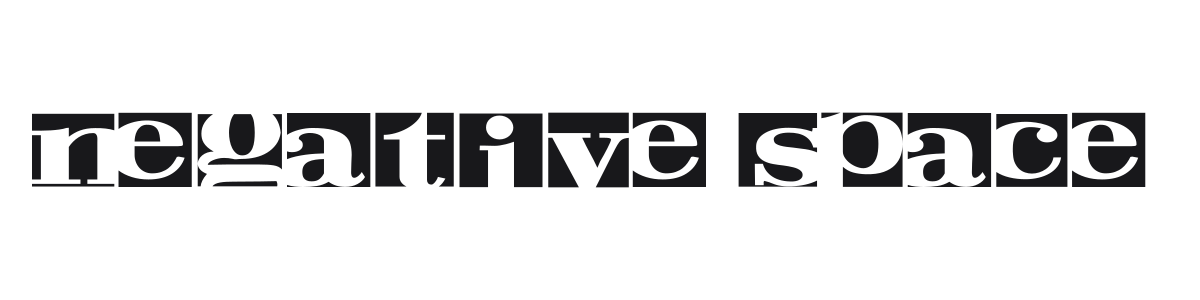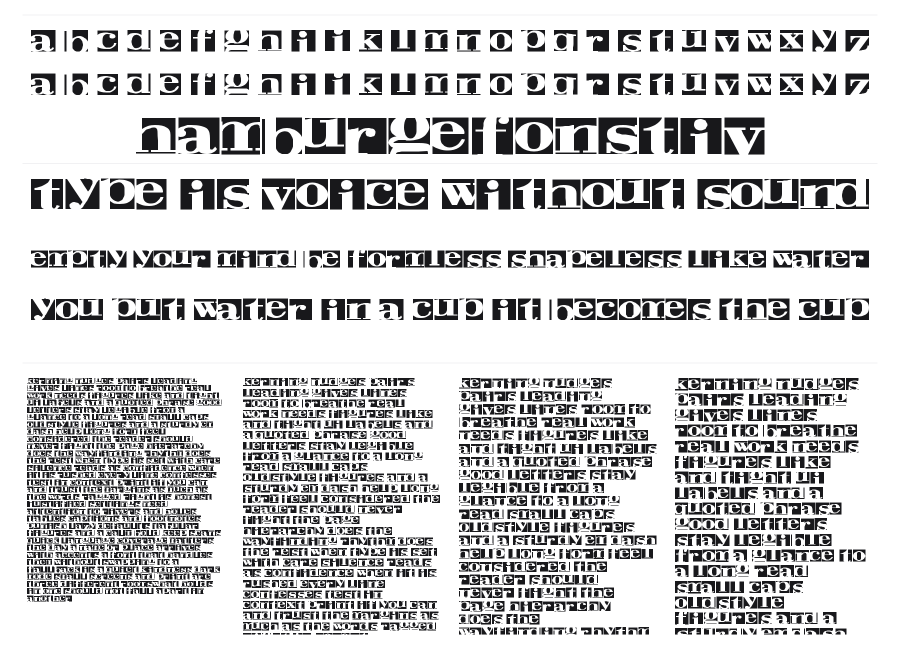
Negative Space
Negative Space is a bold display serif that flips conventional type rendering on its head, presenting each character as white space carved out of a solid black rectangle. The underlying structure draws on a high-contrast serif with thick stems and delicate hairlines, but the cutout treatment makes the black mass the dominant visual element. It commands attention and works best large, where the optical inversion reads clearly.